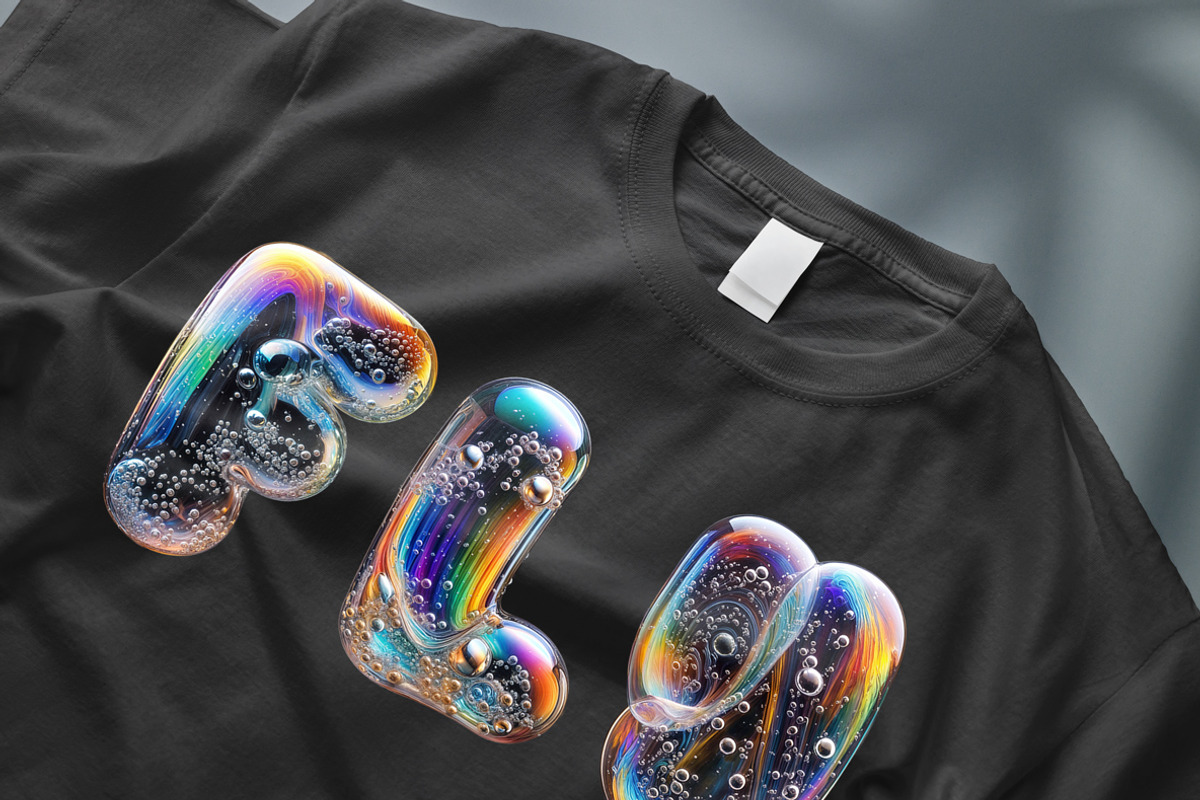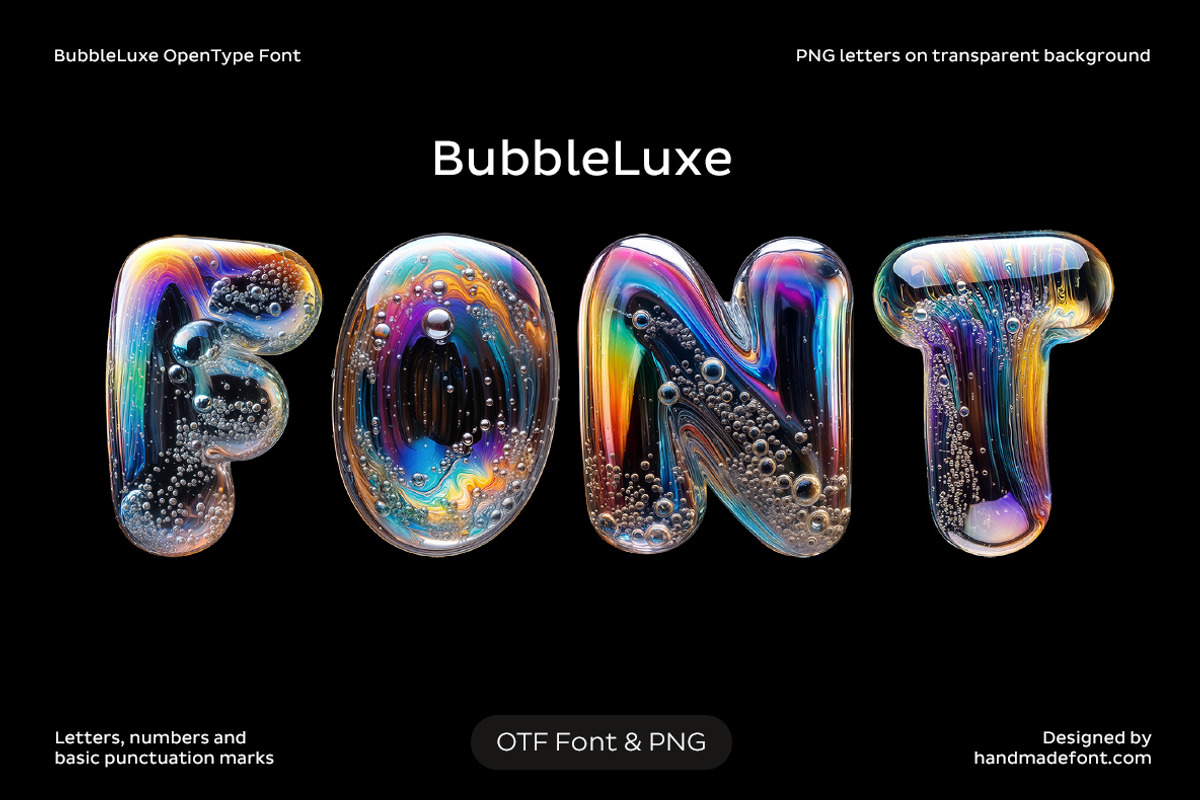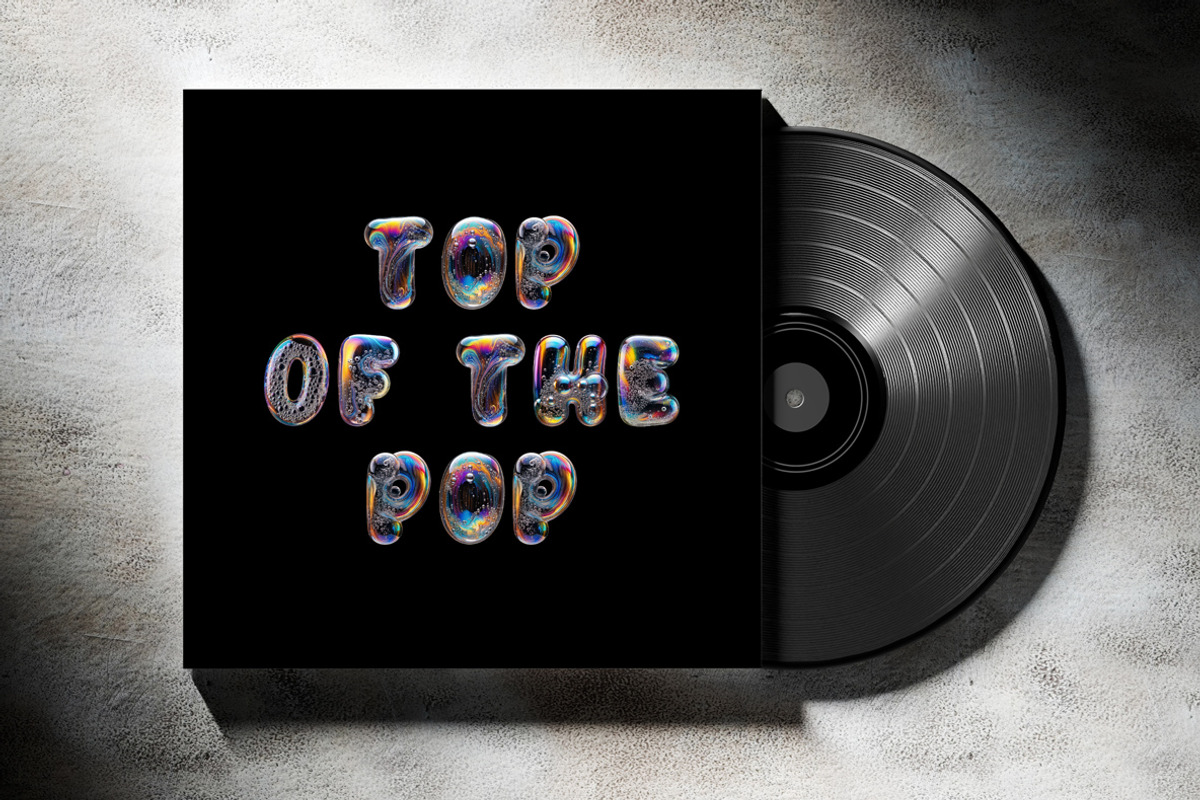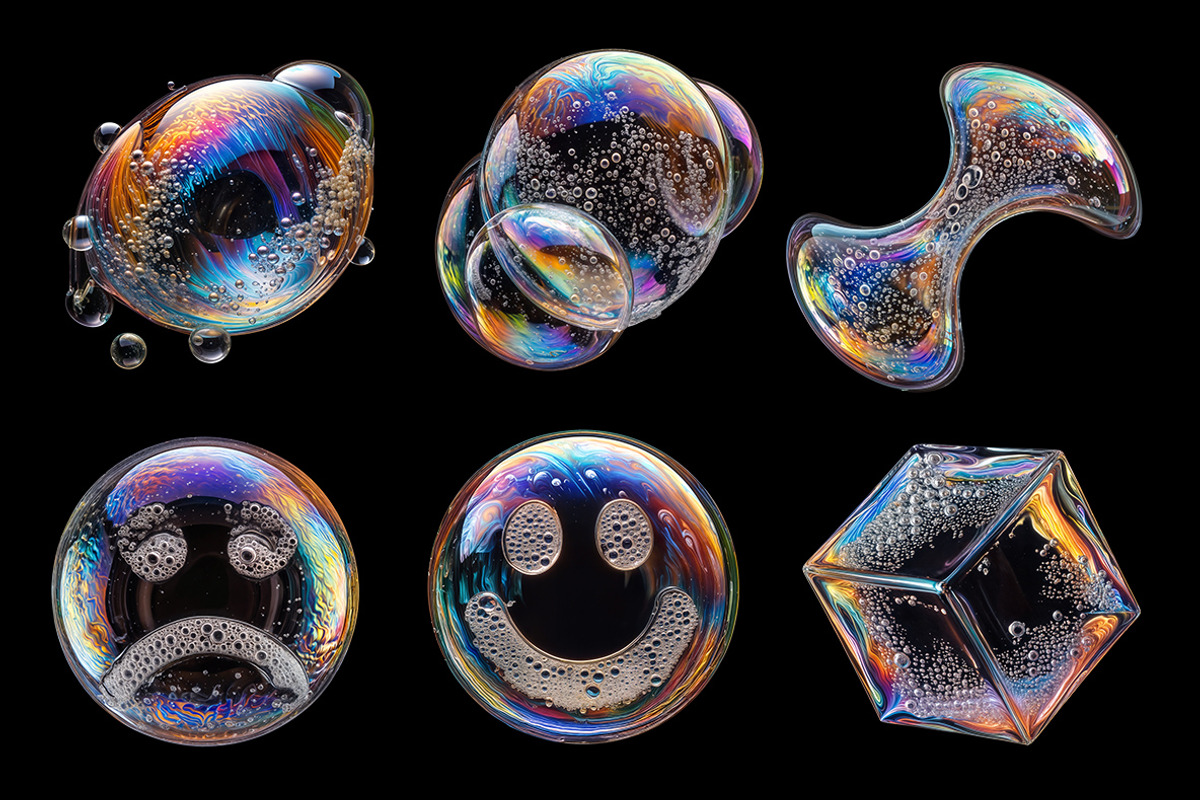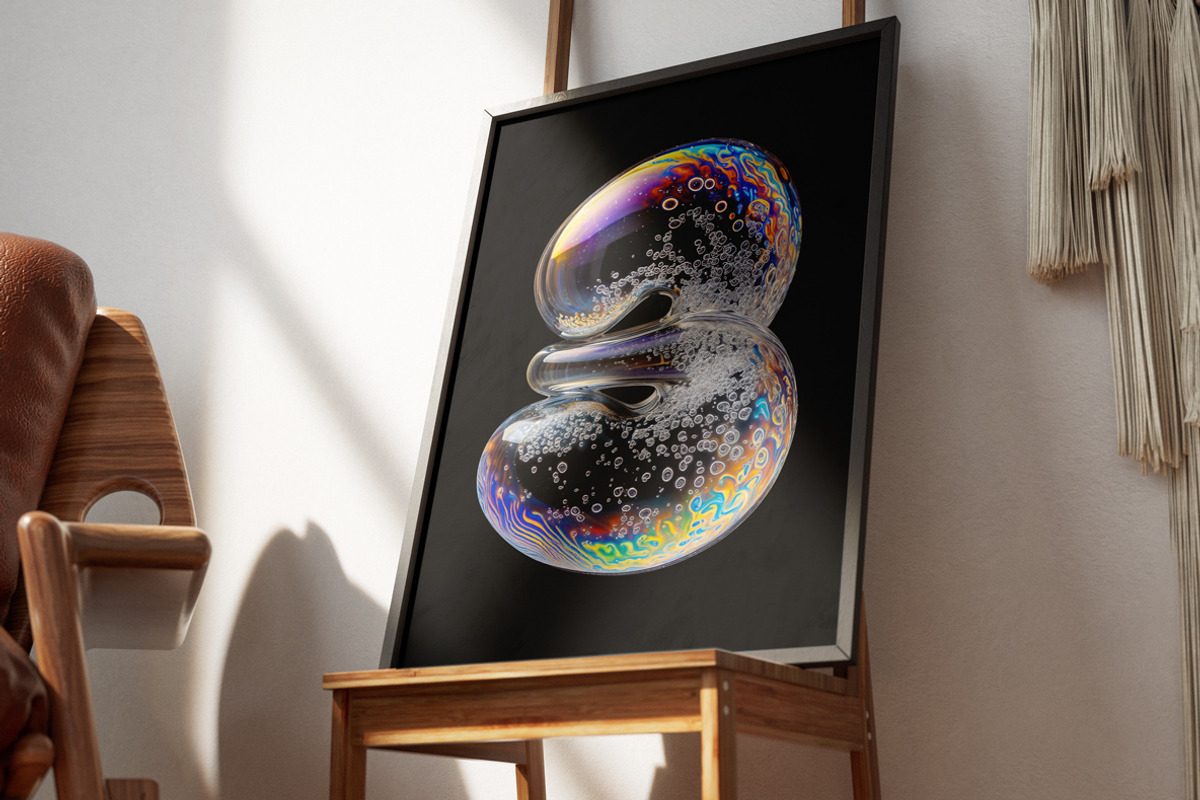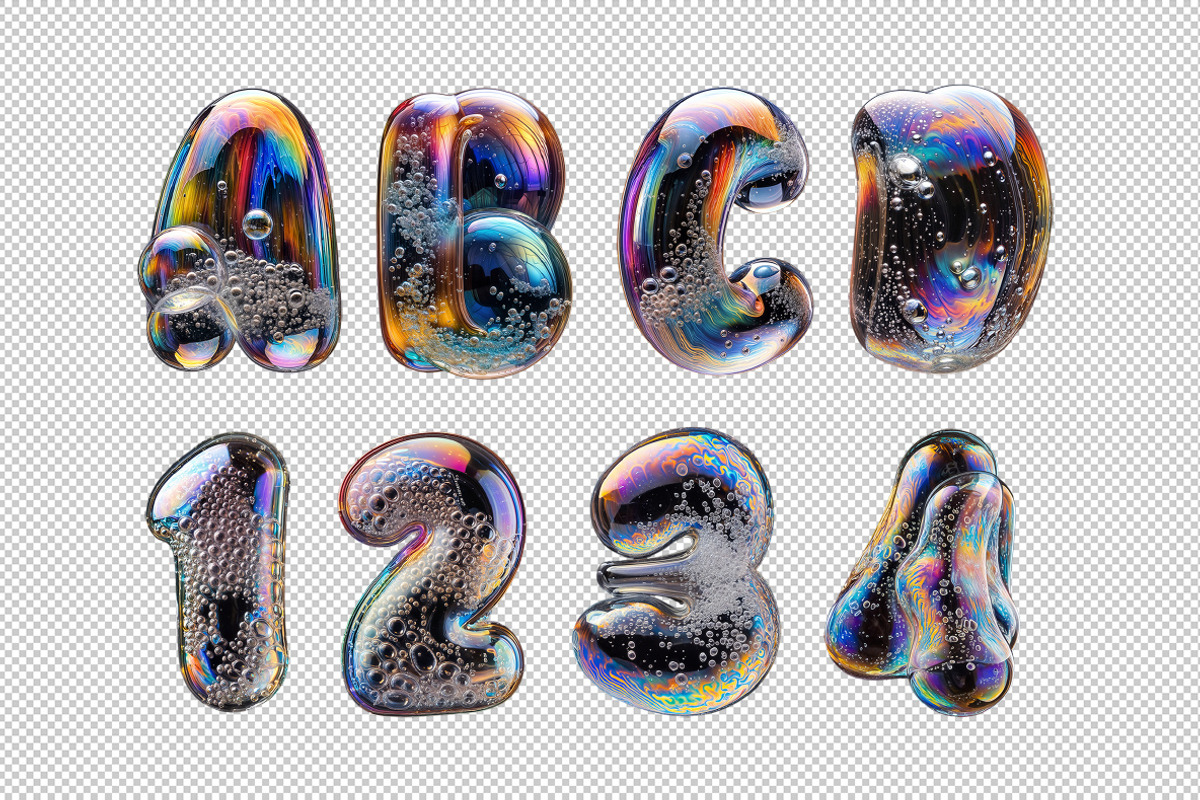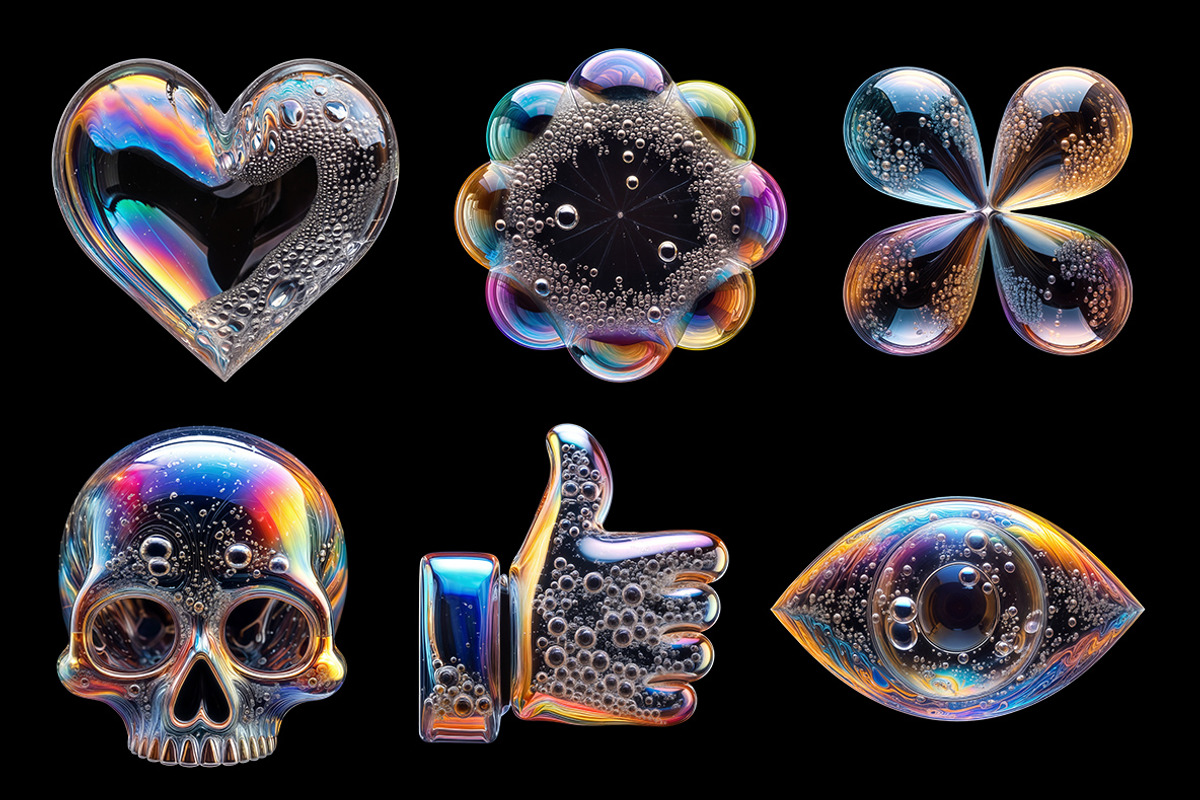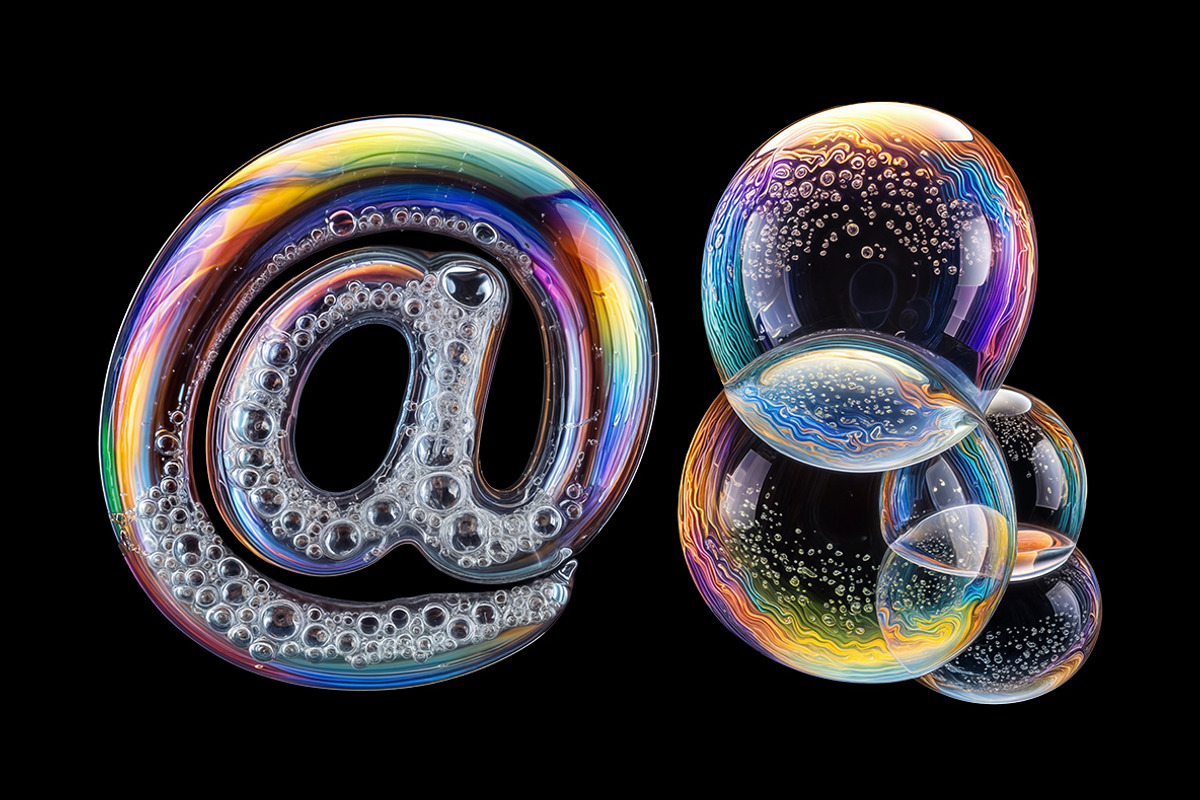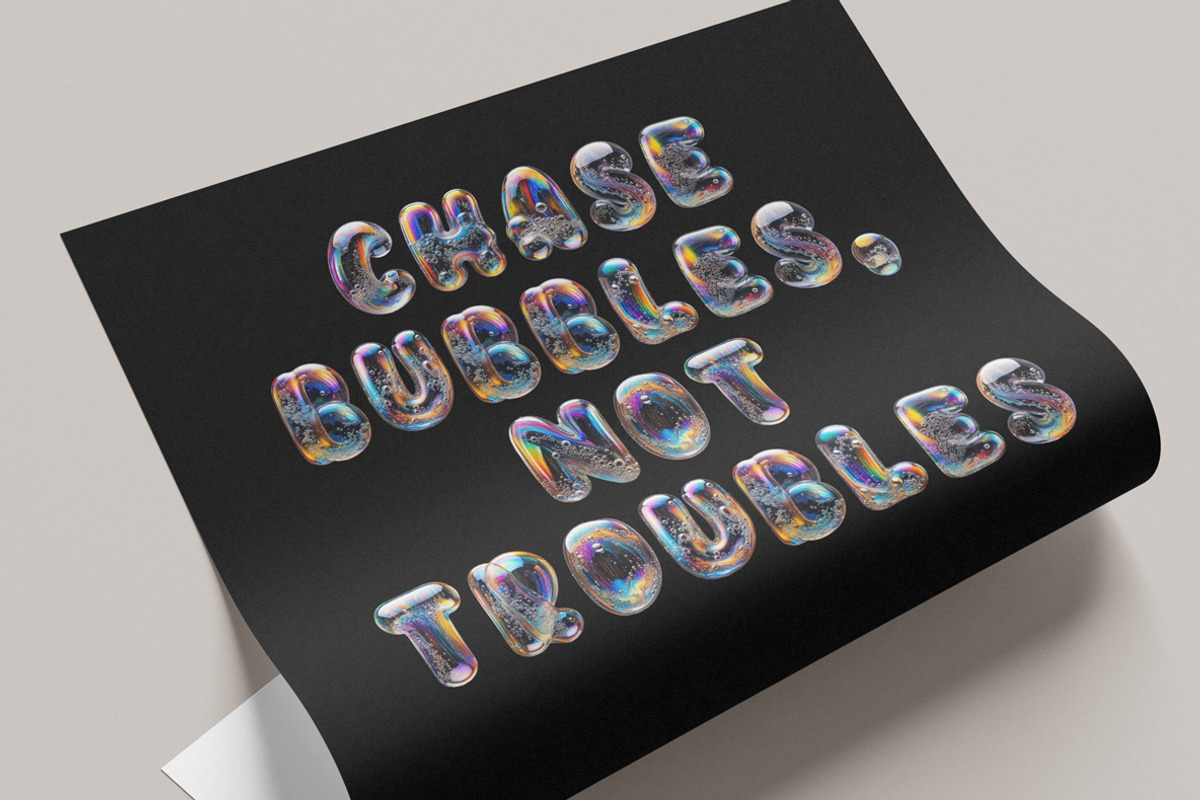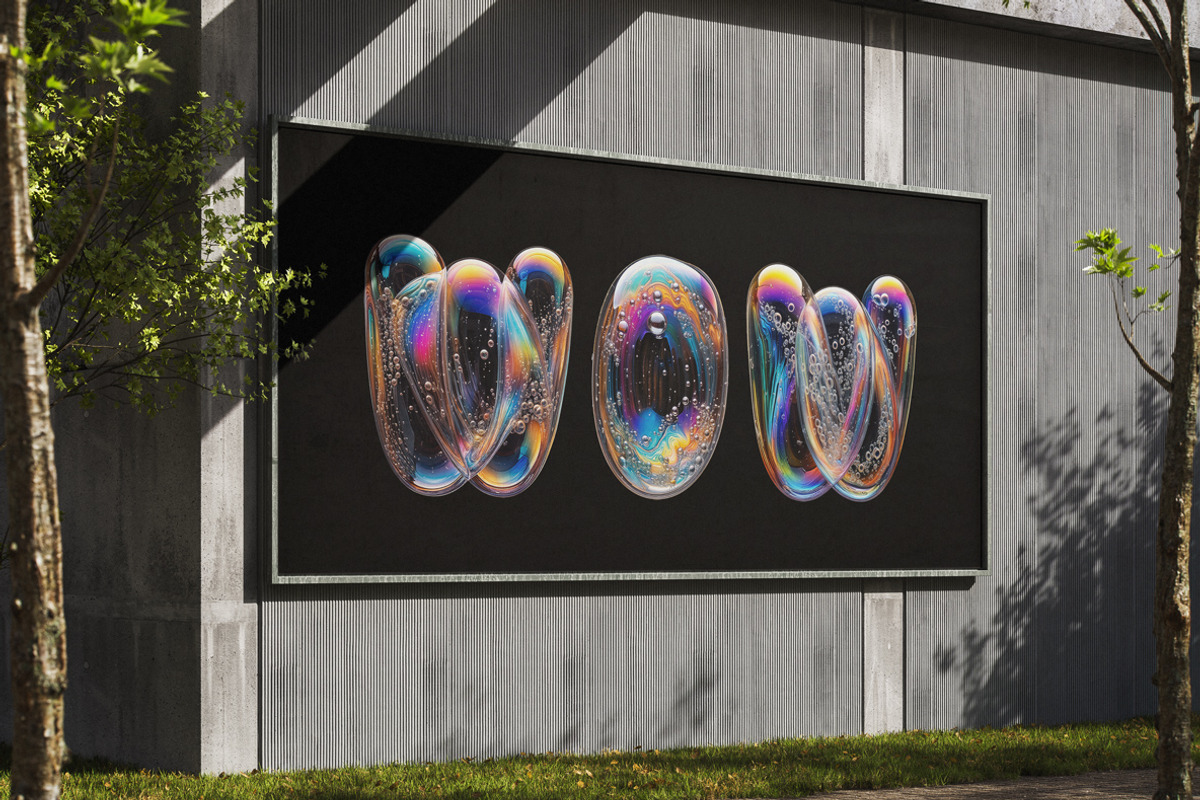
BubbleLuxe Font
BubbleLuxe Font is where luxury meets play! This shimmering, soap-bubble-inspired typeface dazzles with iridescent swirls, delicate transparencies, and playful pockets of floating bubbles inside every letterform. It’s the kind of font that instantly transforms any design into something dreamy, magical, and irresistibly eye-catching. Perfect for branding, posters, or anything that craves a touch of whimsy, BubbleLuxe delivers a visual pop that feels light as air yet rich with detail. Let your words float, shine, and sparkle — because BubbleLuxe isn’t just a font, it’s a celebration of color, light, and the joy of beautiful impermanence.
A high definition OpenType Font. Contains uppercase characters, numerals and basic punctuation. (Draw height roughly 800 pixels). All letters and glyphs that comprises this font you can see on the preview.
- Letters : A B C D E F G H I J K L M N O P Q R S T U V W X Y Z
- Numbers : 0 1 2 3 4 5 6 7 8 9
- Others : ! ? - . ' $ € % & # @